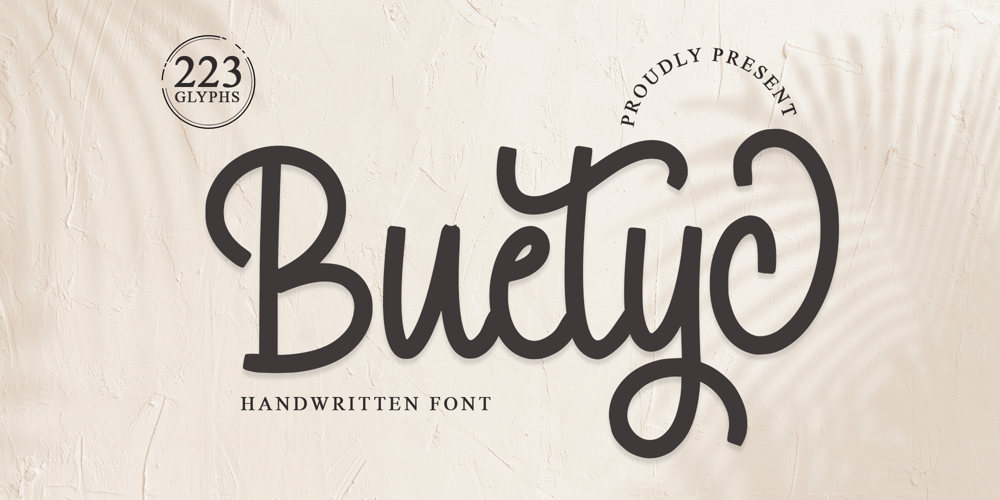
Buetyc
Buetyc font
Buetyc Font Family was designed by Alif Ryan Zulfikar and published by Sakha Design. Buetyc contains 2 styles and family package options. Transform your projects with our elegant handwritten fonts. Perfect for elegant stationery, luxury branding, and exquisite invitations. These fonts offer a refined, sophisticated look that enhances the beauty and professionalism of any design.